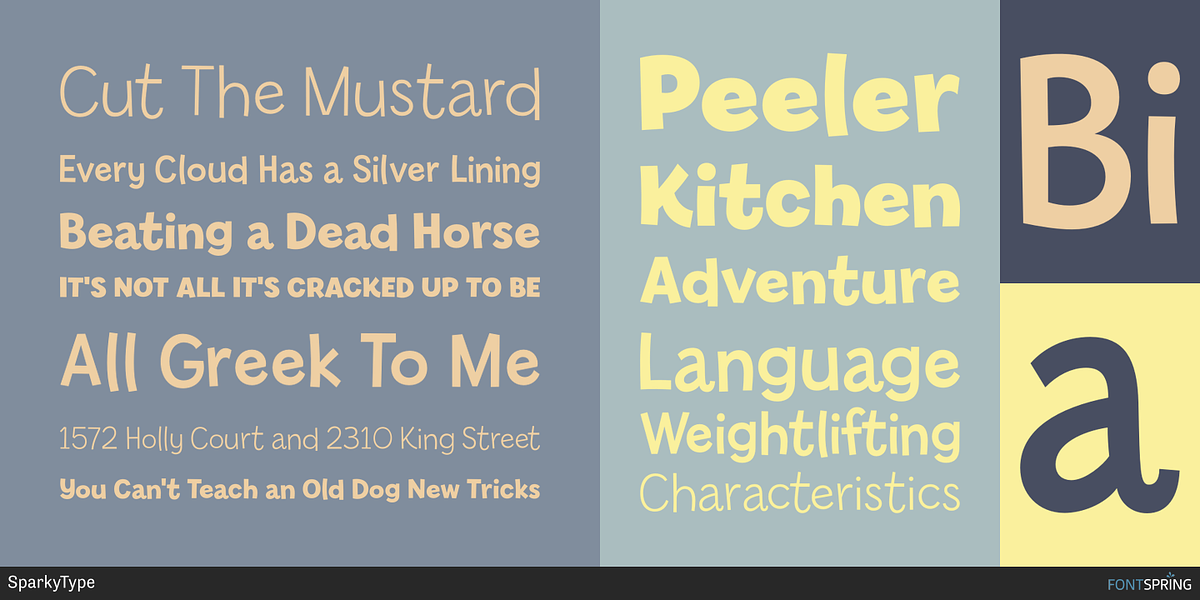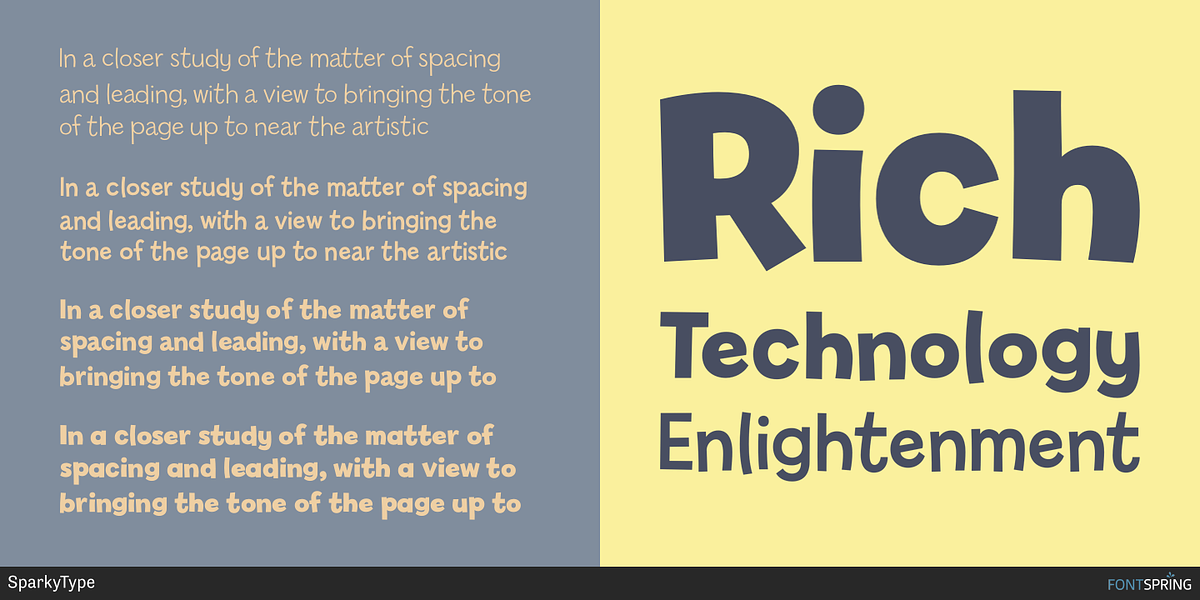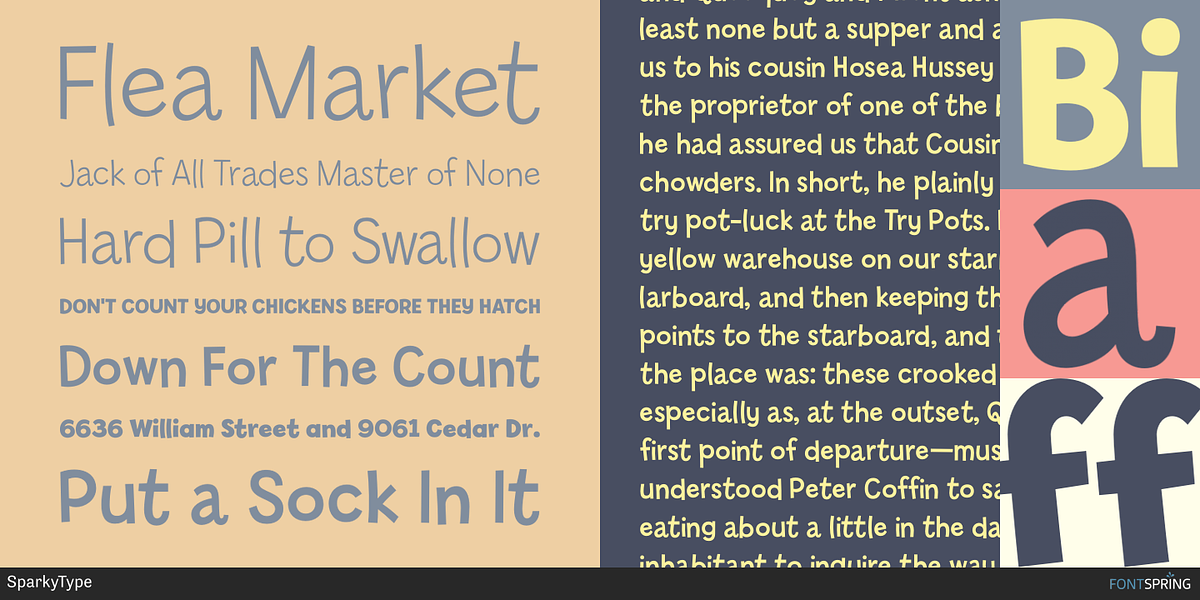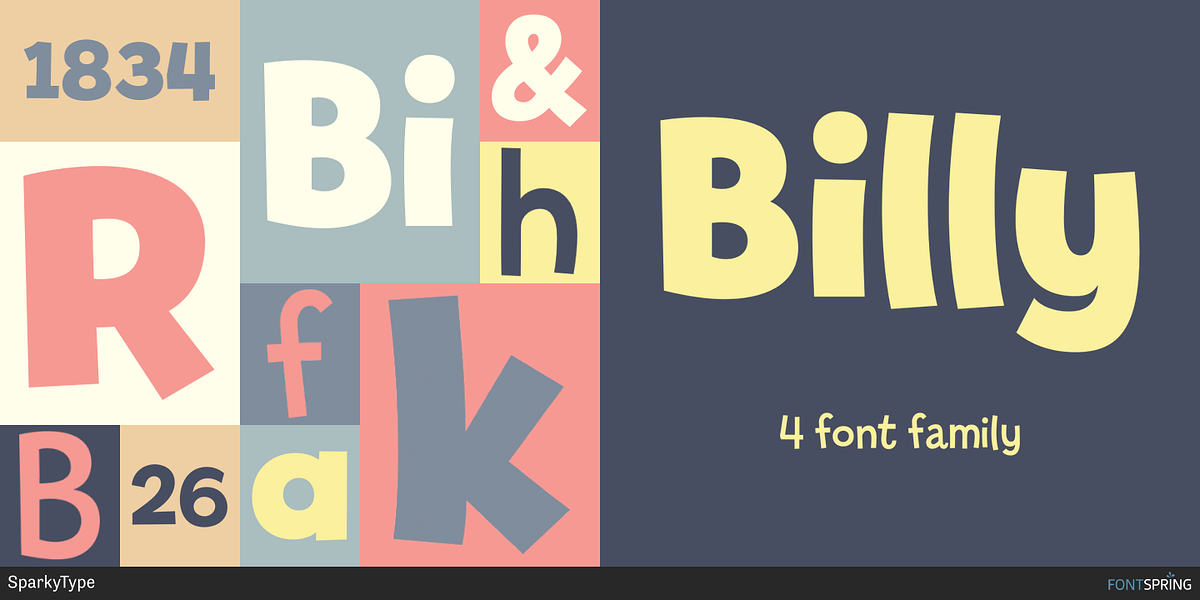
Billy
The Billy font family is a set of playful, hand-drawn fonts designed to bring a sense of fun and whimsy to children's designs. Its uneven strokes and informal style make it ideal for branding, children's books, and other projects targeting a younger audience.